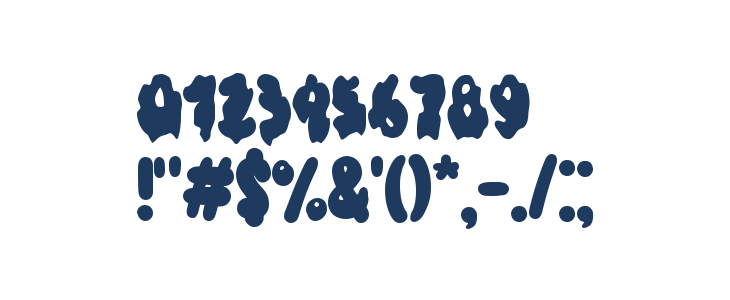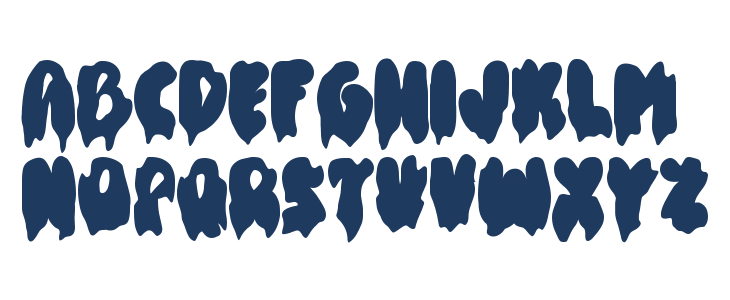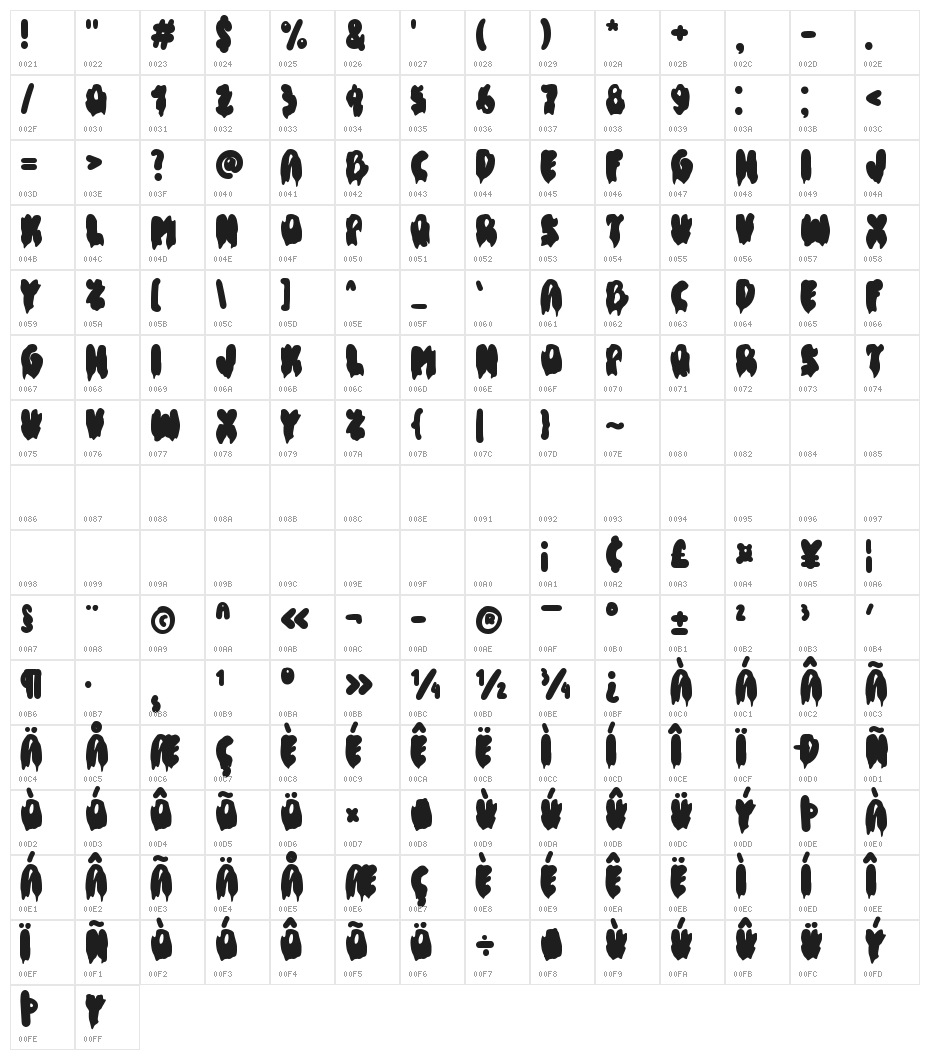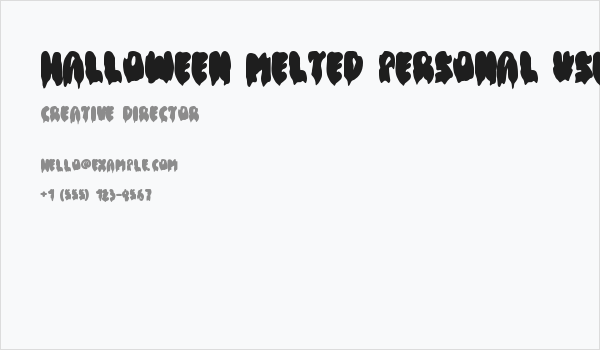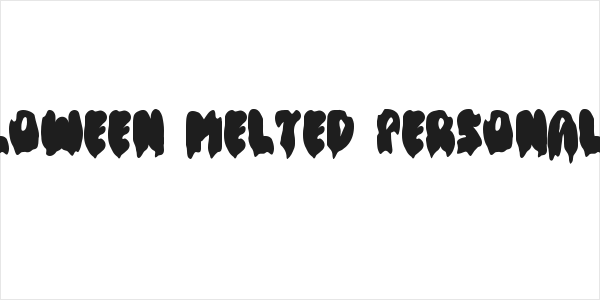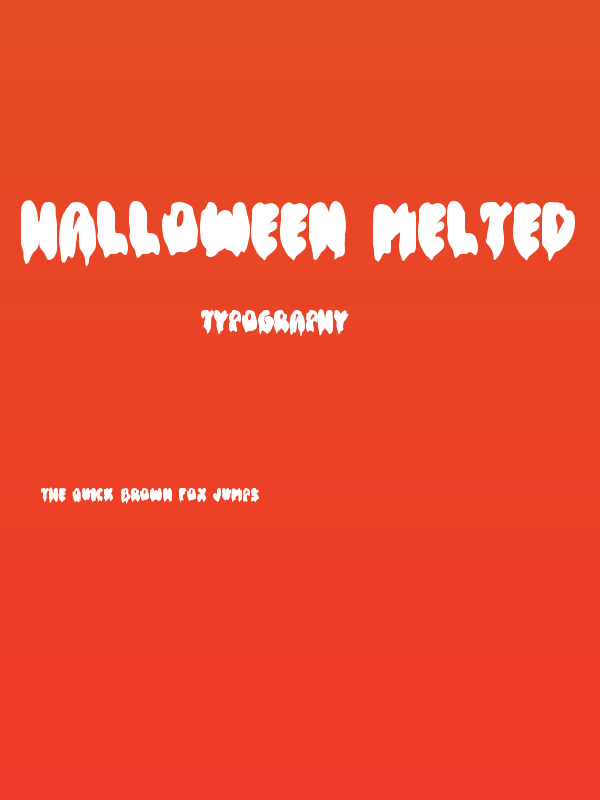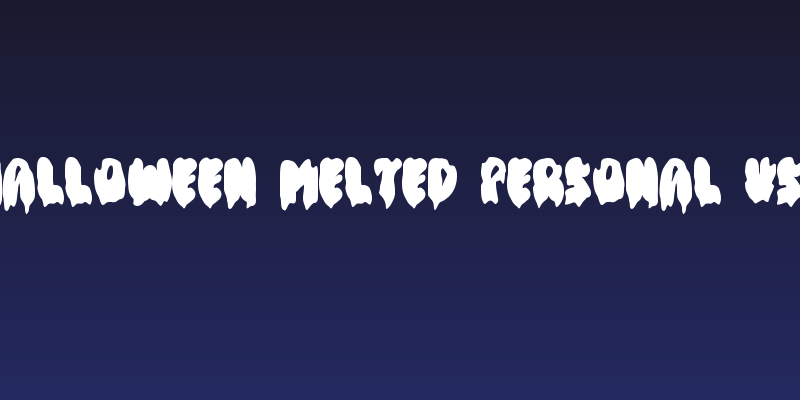
Halloween Melted Personal Use Font
| Overall Style | Decorative, Spooky, Playful |
| Use Case | Headlines, Posters, Event Flyers, Themed Logos |
| Proposed Projects | Halloween posters, party invitations, horror-themed graphics, event flyers, childrenΓ’β¬β’s spooky crafts. |